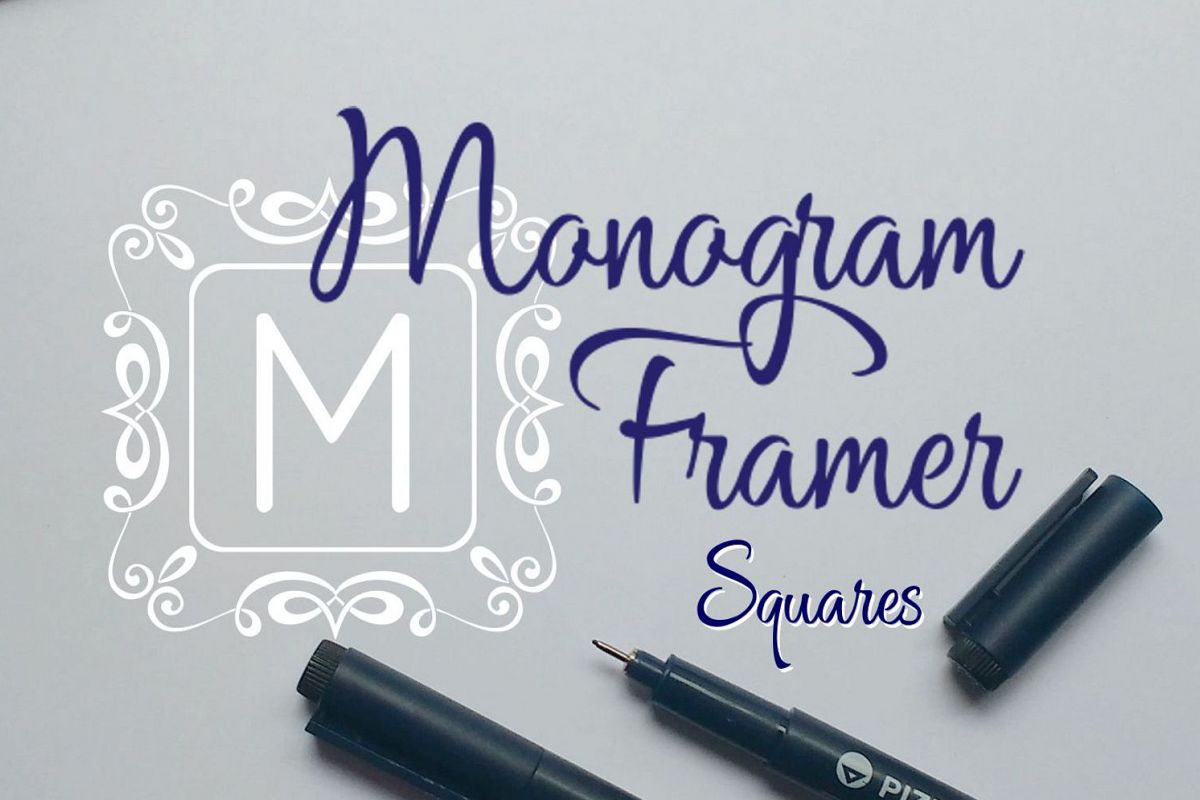
Square Monogram Framer
Square Monogram Frames
Character set are uppercase letters A-Z and &, and 10 square frames (keys 0-9) as it is shown in the example
With Square Monogram Framer font you’ll be able to create a square framed monogram in just 2 easy steps!
Step 1 – Type a number (choose a number 0-9 to select a frame)
Step 2 – Type your letter (without space)
and your letter will be placed perfectly in the center of the frame.